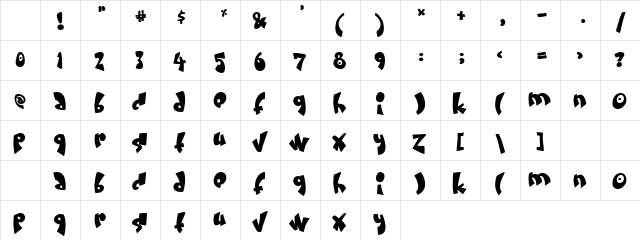
Creamy Dinn Regular
Design Context for Creamy Dinn Typeface
Creamy Dinn is a composed and adaptable typeface that performs quietly and consistently across a wide range of design contexts.